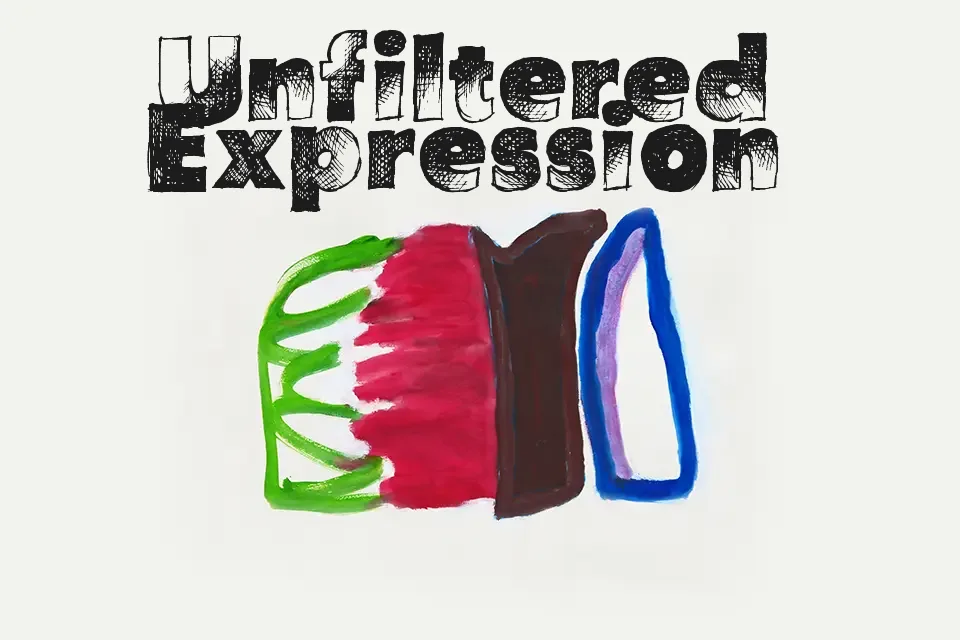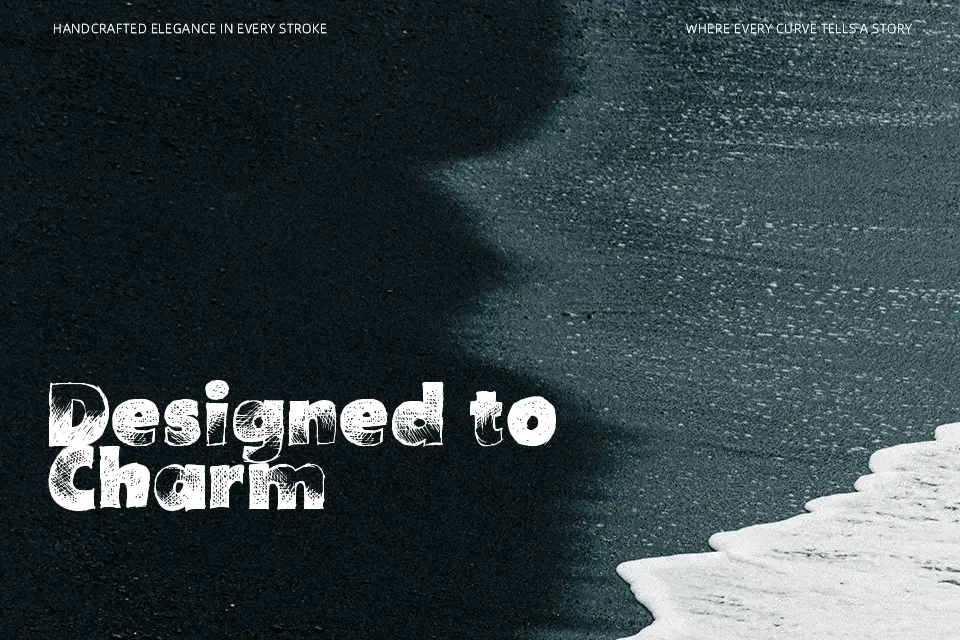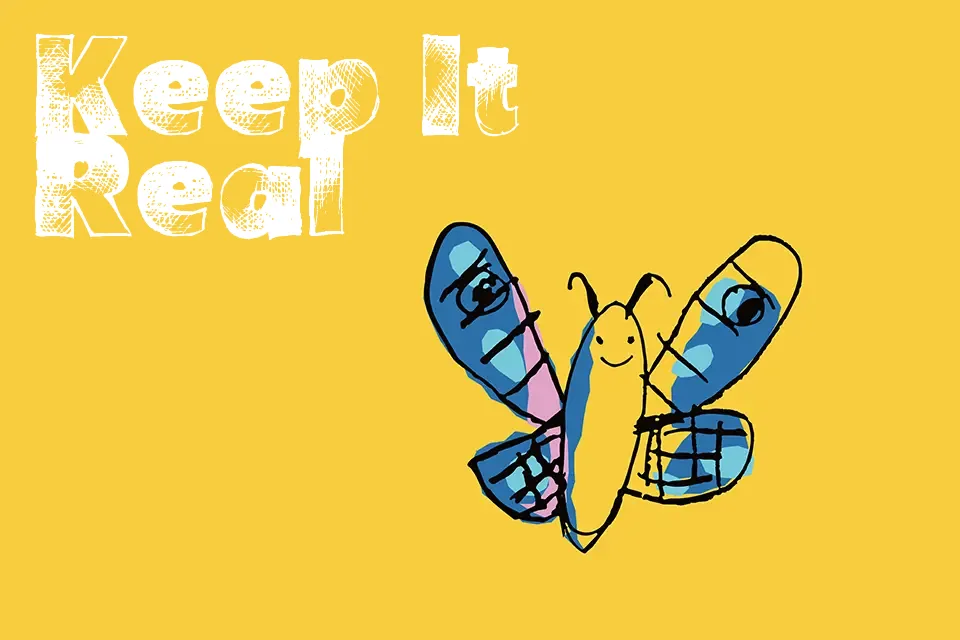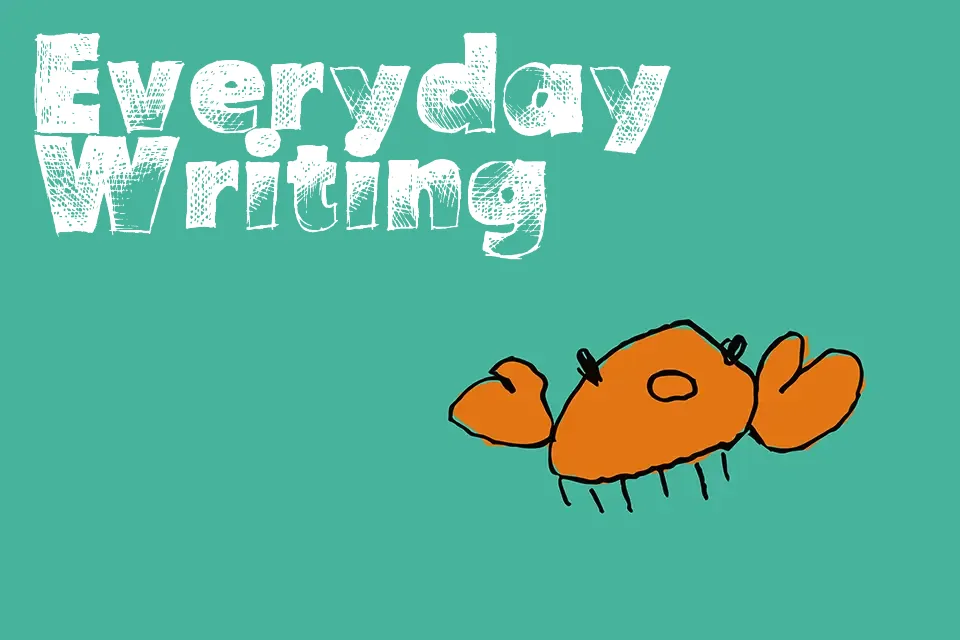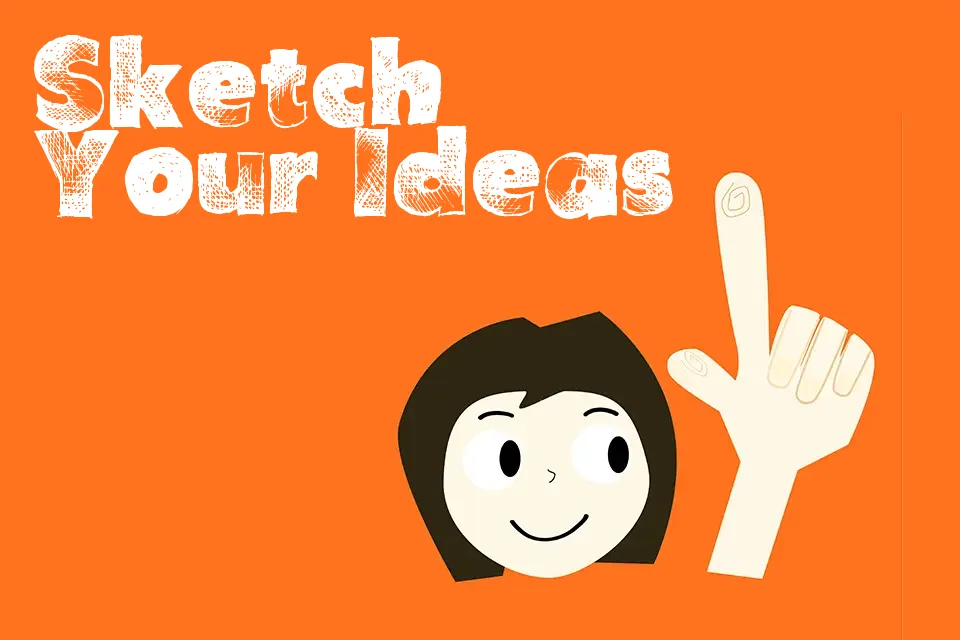
Are You Hung Up Font
There’s a certain casual confidence in how Are You Hung Up carries its strokes — loose, slightly uneven, and unmistakably hand-drawn. The letterforms sit with relaxed spacing and organic variation, giving text an off-the-cuff quality that feels written rather than designed. It fits well in projects like friendship card headers, casual event posters, or playful social captions where a lived-in, human energy is the point. That said, the irregular baseline and informal structure make it poorly suited for any context demanding hierarchy or precision — think medical, legal, or formal editorial work. It also struggles at small sizes, where the hand-drawn texture collapses into visual noise rather than charm.
Best For:- Informal greeting card headlines
– Social media quote graphics
– Casual event flyer titles
– Personal blog post headers
Not Ideal For:- Small-size body text or captions
– Corporate or professional print materials
– Formal editorial layouts
– Digital UI labels requiring legibility
Perfect for holiday, invitation, and poster, with a creative and decorative style.